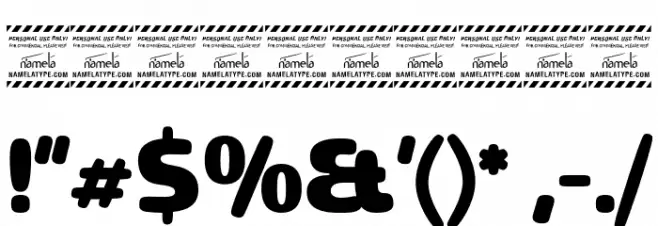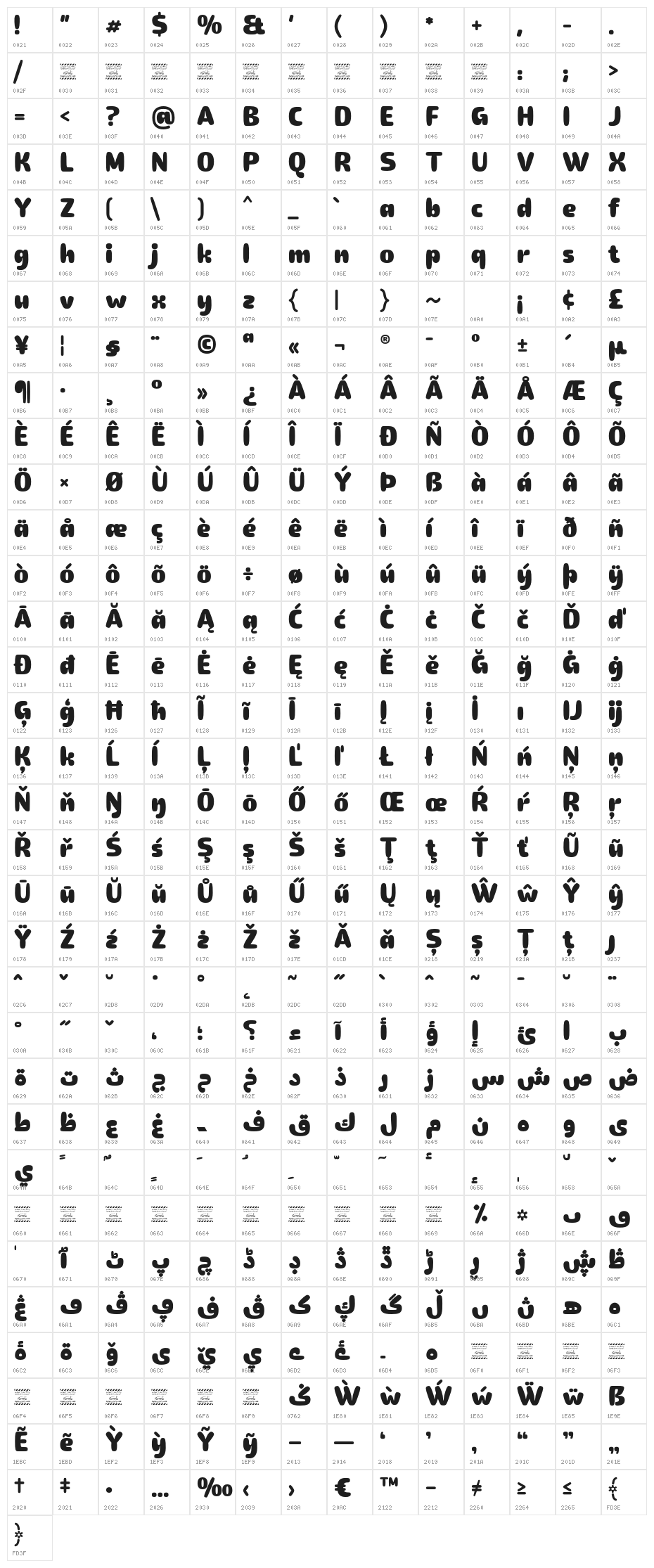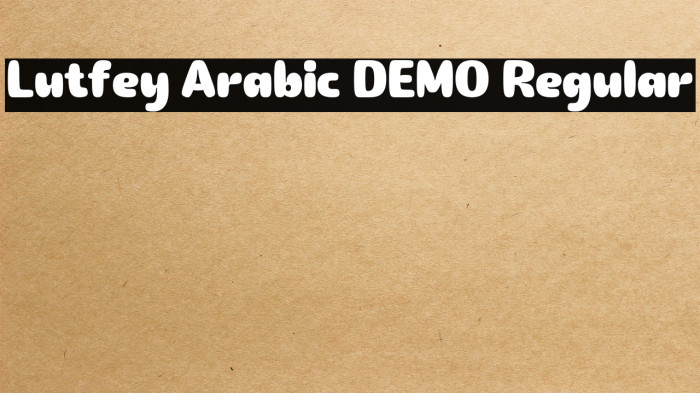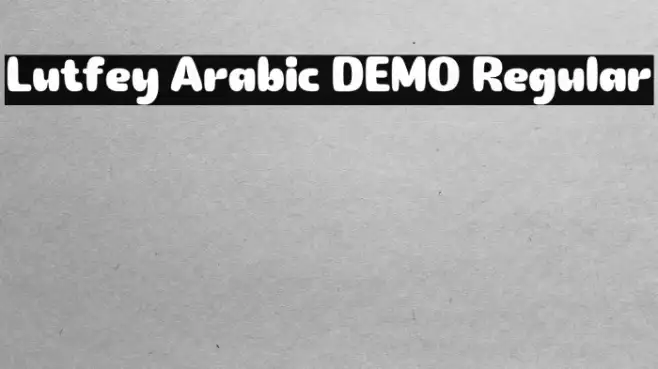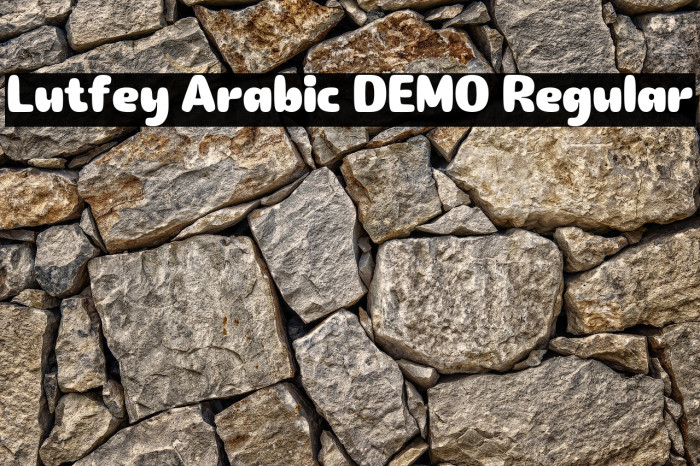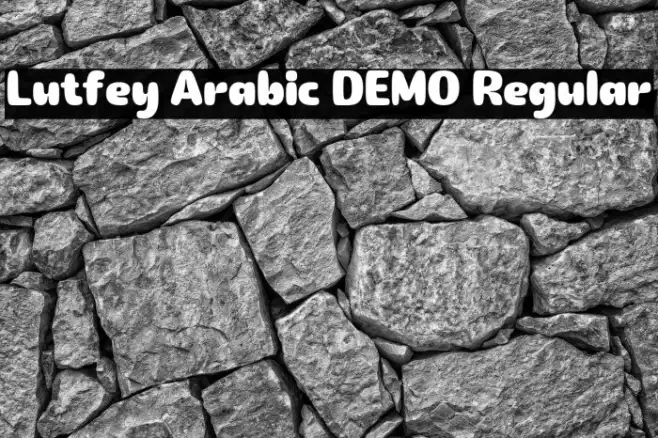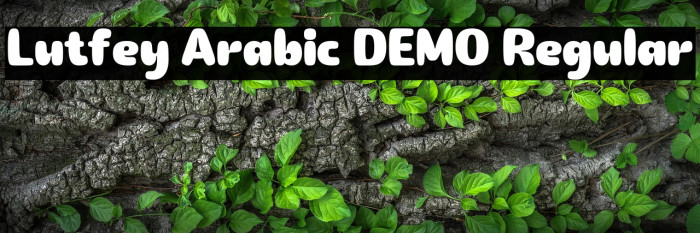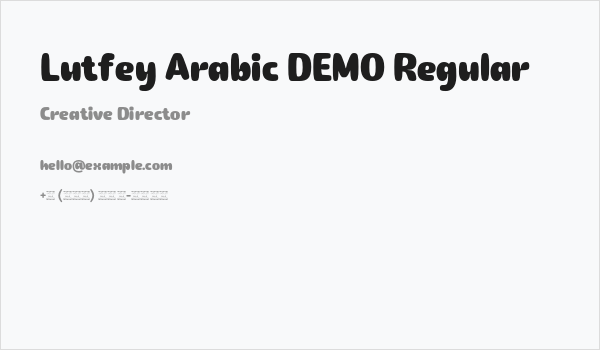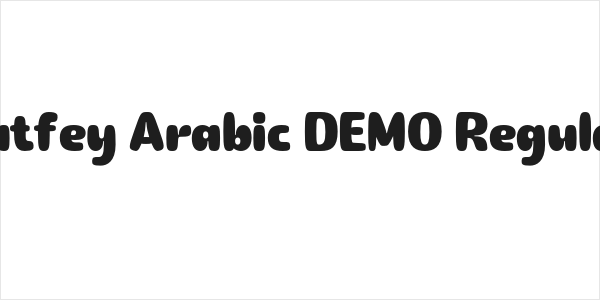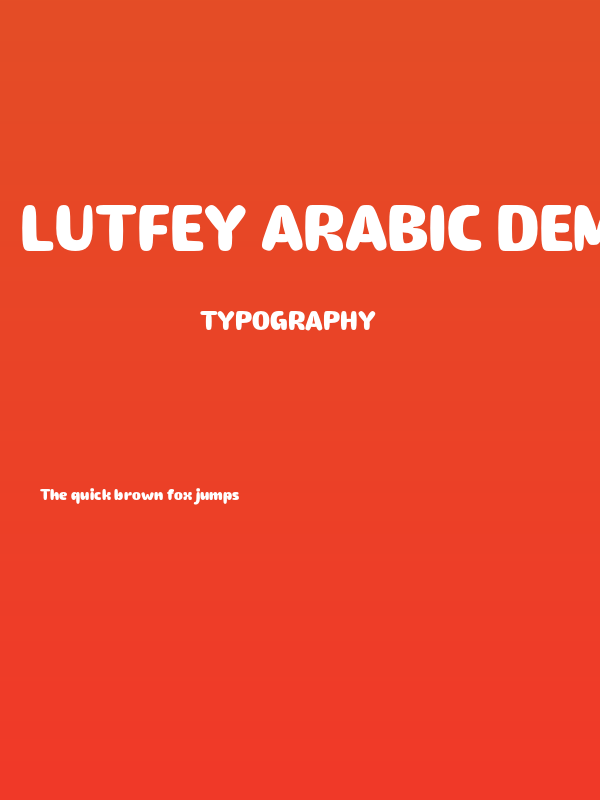
Lutfey Arabic DEMO Regular Font
Lutfey Arabic DEMO Regular Description
This font features a bold and rounded style, giving it a playful and approachable appearance. The characters are uniformly thick, with smooth curves and a consistent stroke width throughout. The uppercase and lowercase letters maintain a cohesive look, with rounded terminals and a slightly condensed form. The numerals and special characters follow the same design principles, ensuring a harmonious overall look. This font's friendly and informal style makes it suitable for a variety of creative projects.
| Proposed Projects | Ideal for children's books, playful branding, casual invitations, and creative posters. |